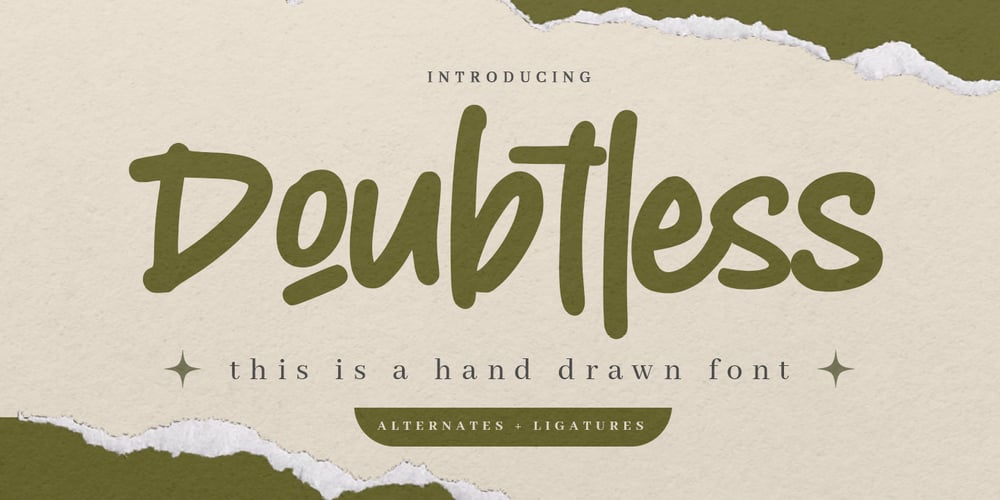
Doubtless Font Family was designed by Abdul Malik Wisnu, Anang Fibriyanto and published by Gassstype. Doubtless contains 1 styles and family package options. Hello Everyone, introduce our new product Font Doubtless This Is Hand Drawn Font.This is a Textured Natural Style and classy style with a clear style and dramatic movement.You can activate 8 Ligatures and 31 Alternate glyphs OpenType panel.